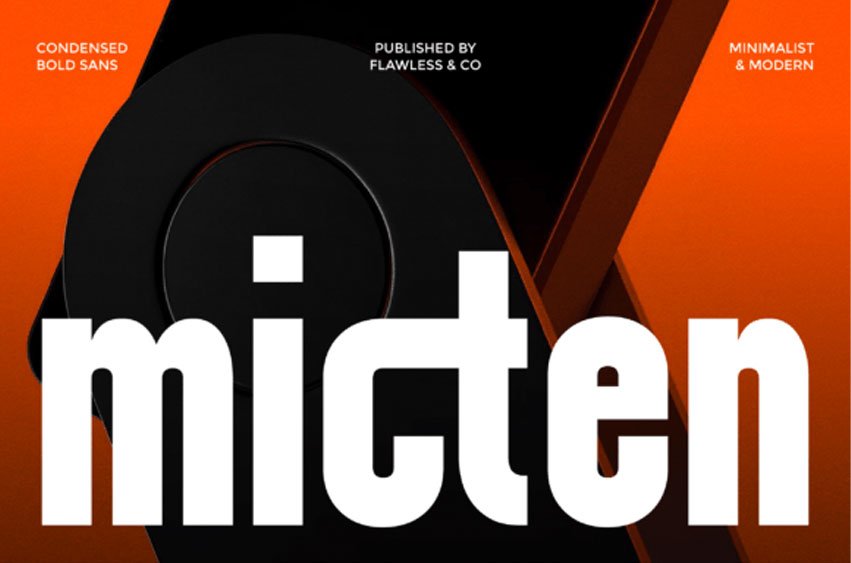
Micten Font is a bold condensed sans serif font designed to deliver maximum impact with minimal space. Featuring strong letterforms, tall proportions, and a clean condensed structure, Micten creates a powerful visual presence that feels modern, confident, and highly readable.
Its bold character makes it ideal for attention-grabbing headlines, branding, and display applications where clarity and strength are essential.